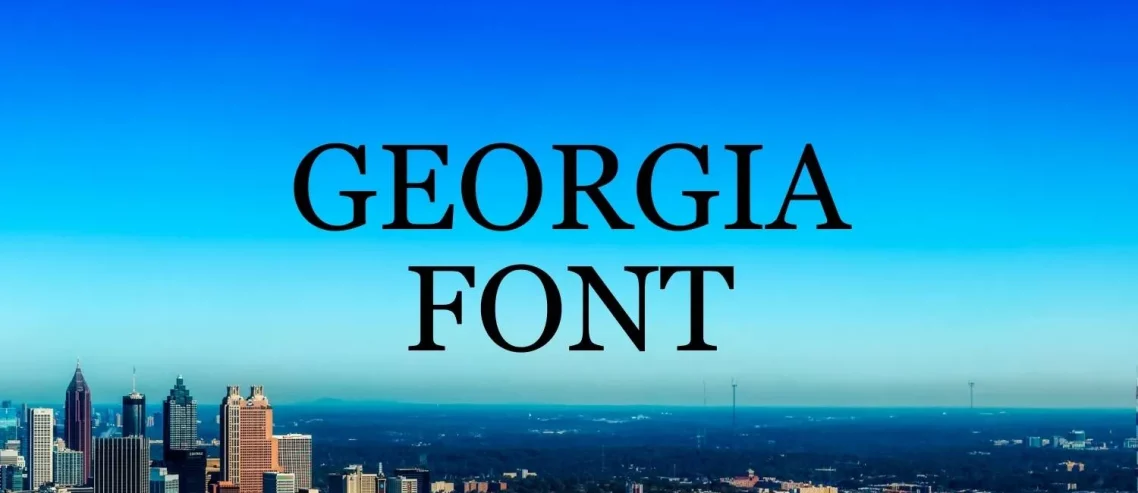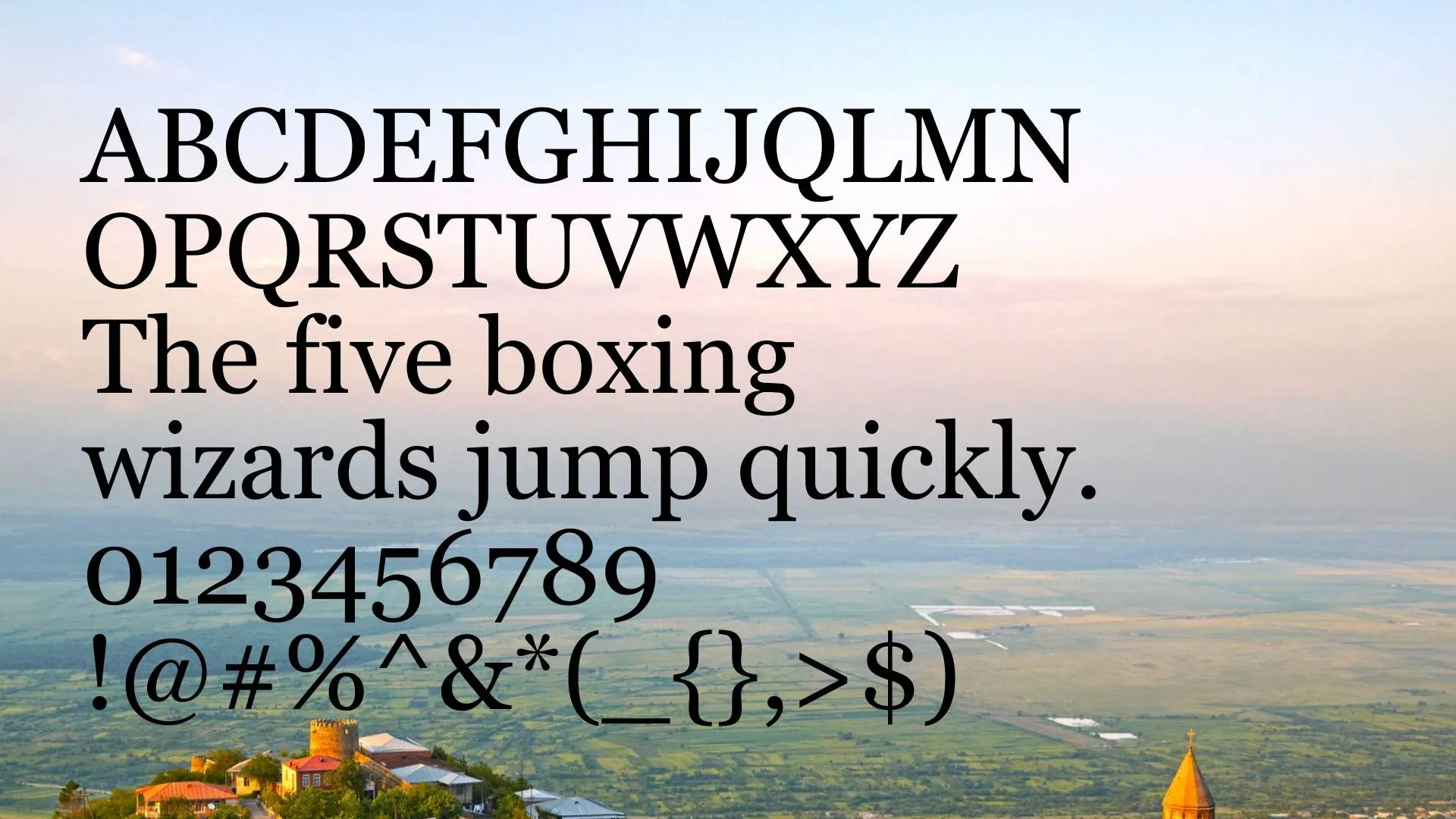
Today we presenting you a new serif typeface that is very famous these days that name is Georgia font. Matthew Carter and Tom Rickner are designed this font in 1993 through Microsoft. This font is officially released on 1st November 1996, by Microsoft Corporation.
This is very charming and versatile f that comes in 585 characters and in 4 common styles. This font is a 19th-century style that was inspired by Scotch Roman designs in which carter was working.
In 1999 and 2011 this font has won awards in Kyrillitsa and National Design Museum in Smithsonian and New York Times has been using the Georgia font rather than the Times New Gothic since 2007.
Name | Georgia Font |
Designer | Matthew Carter and Tom Rickner |
Style | Serif |
The updated version of Georgia font was released in 2013 that is perfect for all kinds of designing. this font is also best in Promotional systems, Magazines and Journals, Business cards, Assignation cards, Web designs, ads, Social Media Posts, Book Covers, Folderlayouts, symbols, Markers, Product Packaging, and Branding arrangements. This font is also looking very great in small and large text.
This font is designed by very famous and creative designers named is Matthew Carter and Tom Rickner. This font was developed in 1993 and released on 1996.
This font family comes in 4 styles that are given below:
- Georgia Regular
- Georgia Italic
- Georgia Bold
- Georgia Bold Italic
This font is the most common usable serif typeface. This font is not available in the Adobe font store but you can utilize this font in the adobe software.
This font was designed by a very famous and creative designer named is Matthew Carter and Tom Rickner. These designers design this font through Microsoft corporation.